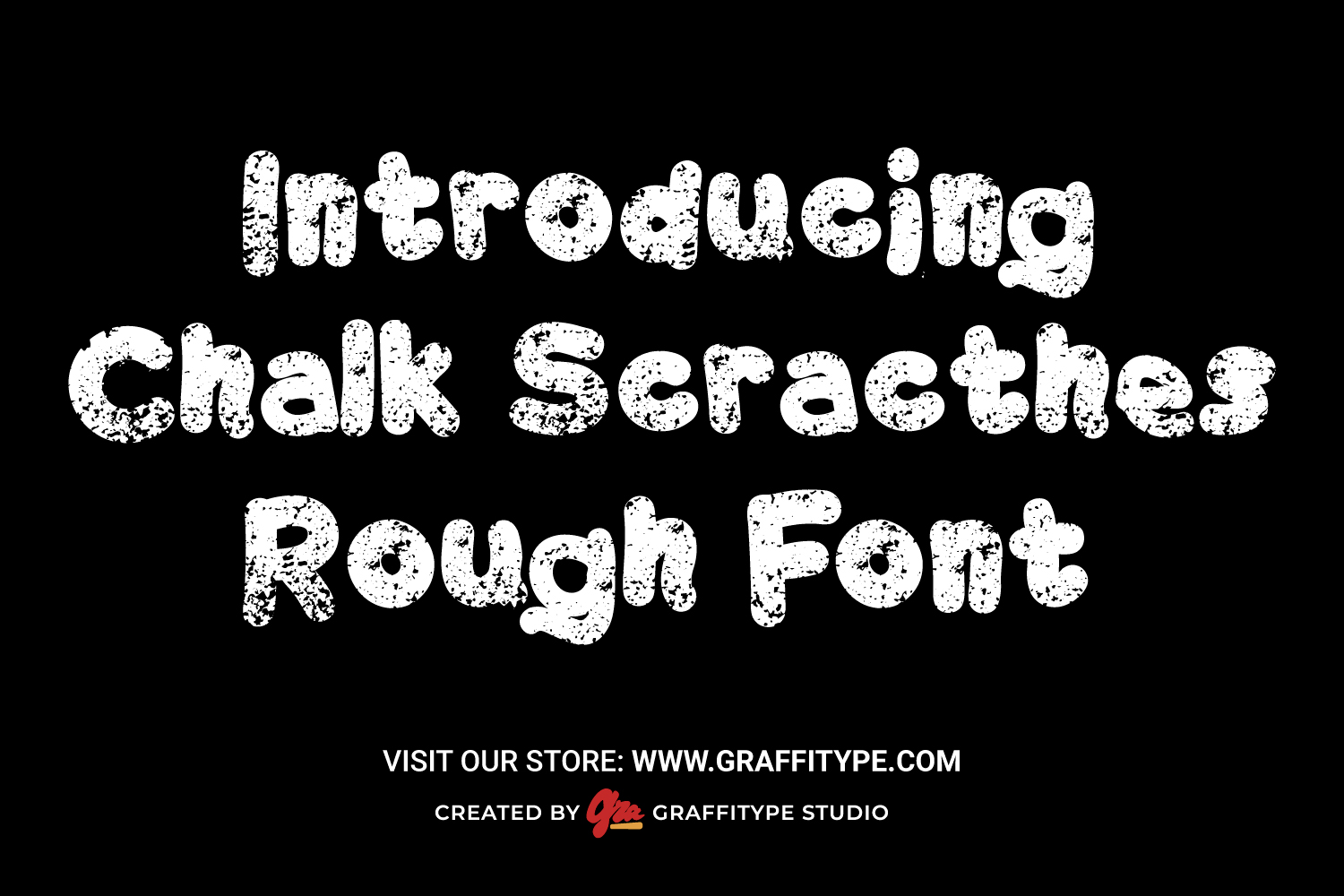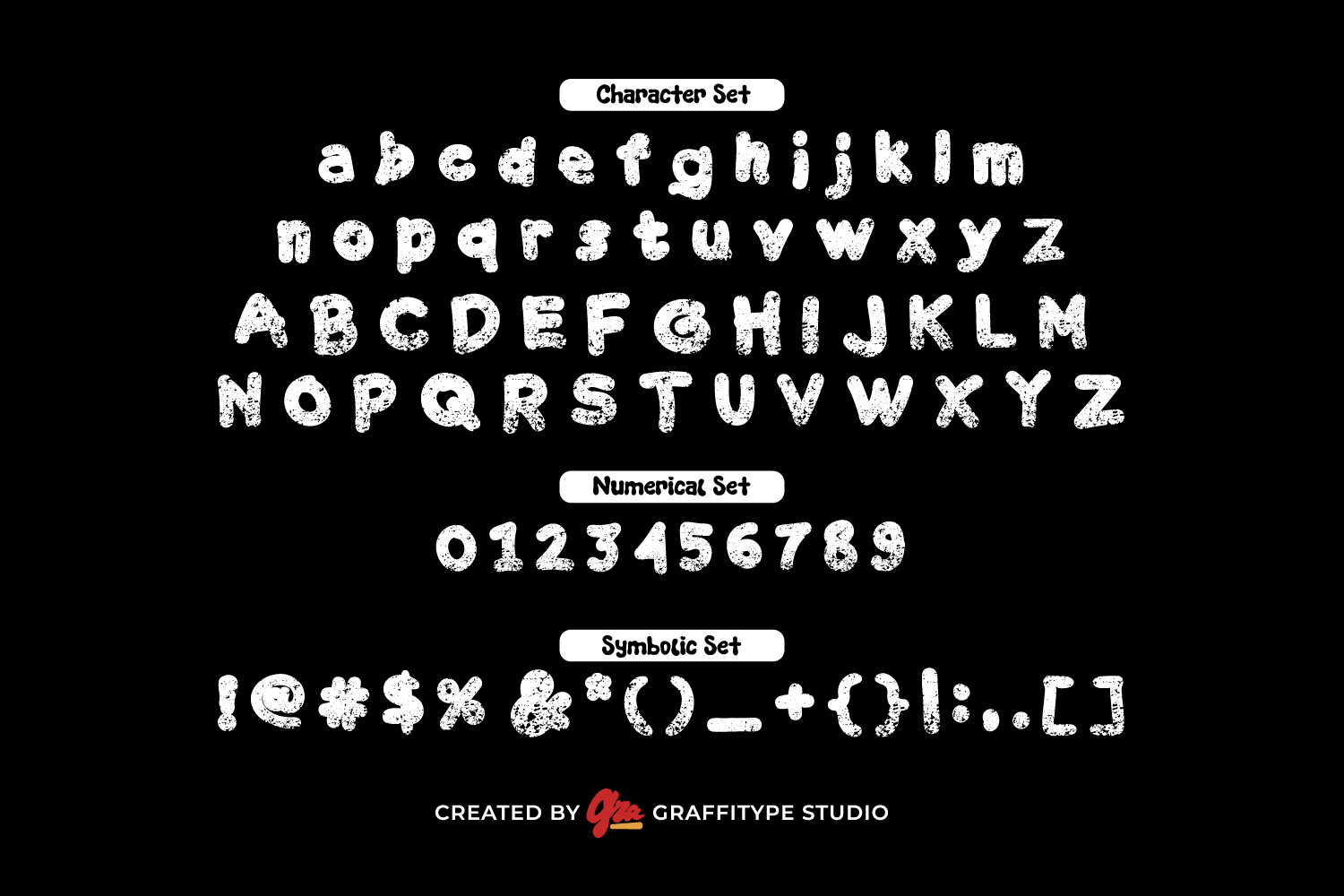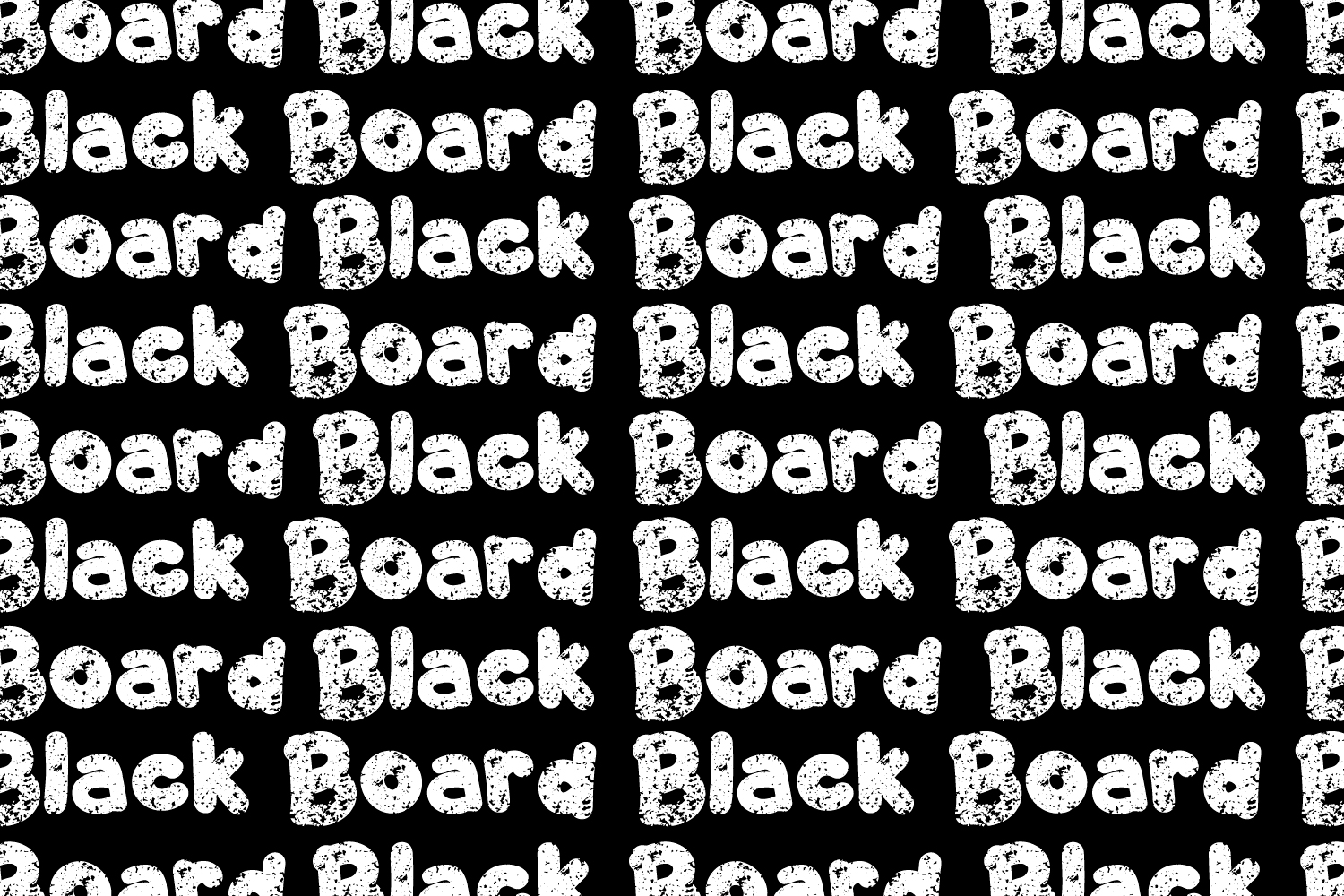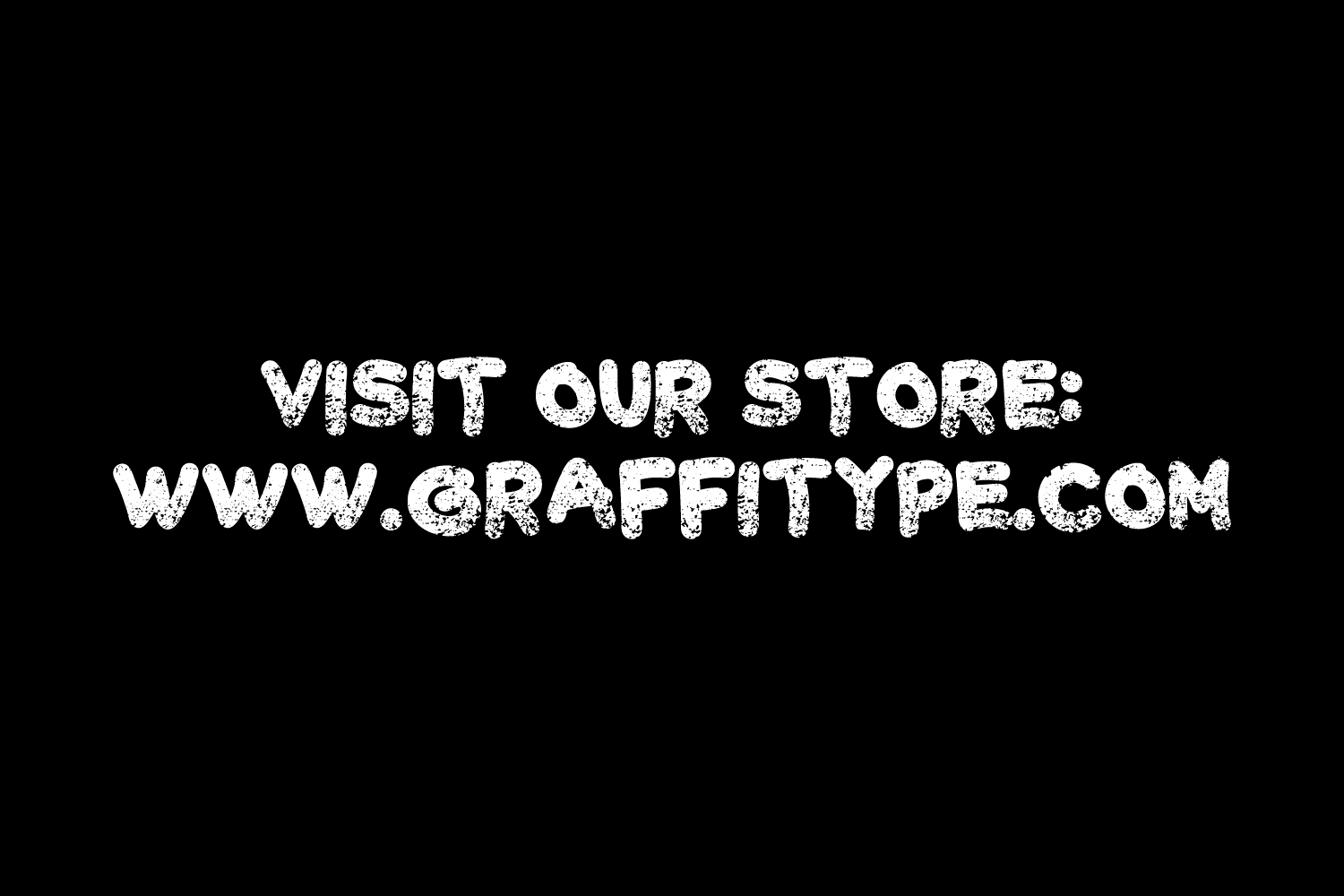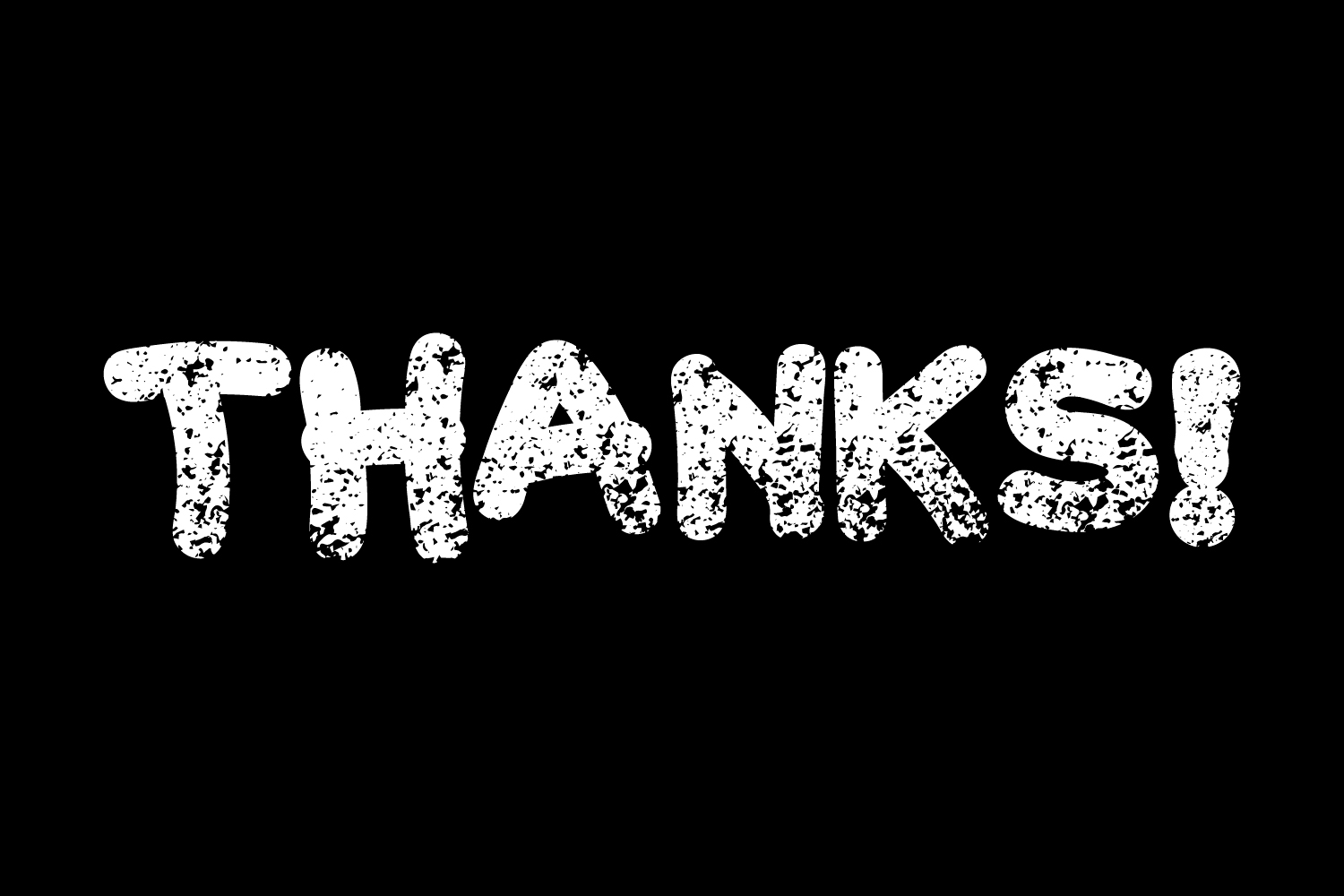
Chalk Scratches Rough
Chalk Scratches Rough Font captures the raw, textured feel of hand-drawn chalk on a dusty blackboard. With its rough edges, uneven strokes, and distressed details, it exudes an organic and spontaneous character—perfect for designs that want to feel authentic, bold, and handmade. Whether evoking the nostalgia of classroom doodles or the grit of street-style lettering, this font delivers a strong visual impact.
Designed primarily for display purposes, Chalk Scratches Rough Font stands out in headlines, posters, packaging, and signage. Its expressive texture and bold presence make it ideal for projects that demand attention while retaining a creative edge. Use it to add a playful yet gritty tone to your visual storytelling, where texture and personality are key.